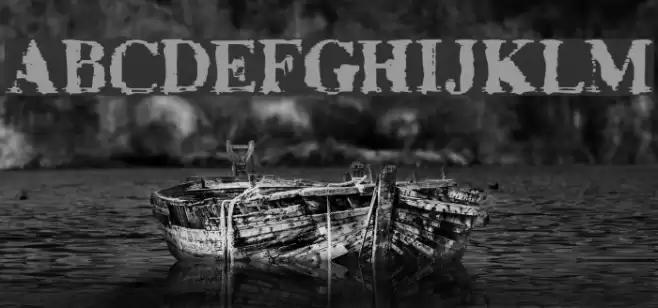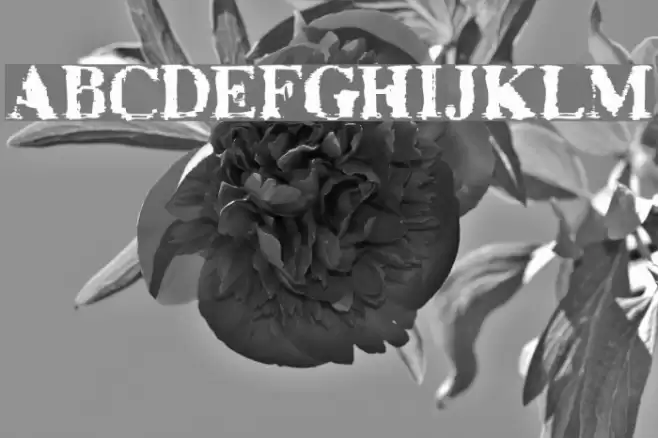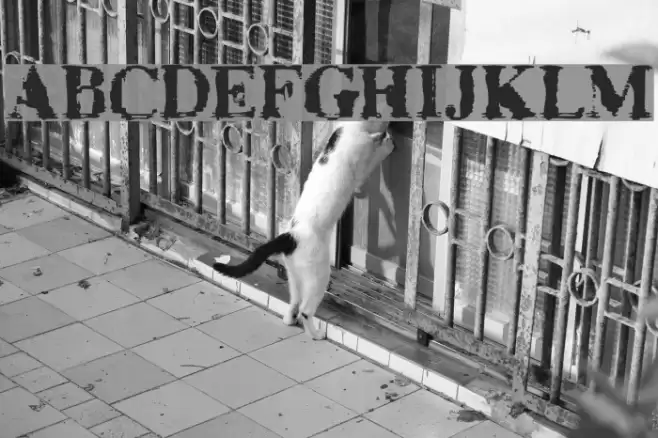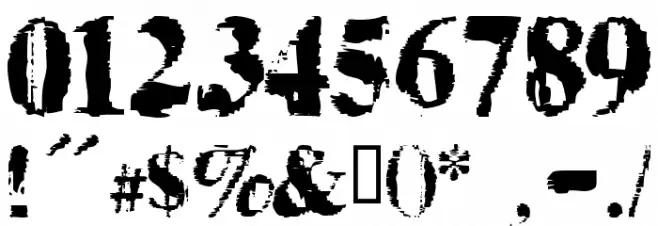
TimesNoRoman Font
TimesNoRoman Description
This font features a distressed, grunge style with irregular edges and a bold presence. The characters are heavily textured, giving them a worn and rugged appearance. The uppercase and lowercase letters maintain a consistent style, with thick strokes and uneven surfaces that suggest a vintage or industrial aesthetic. The numbers and special characters follow the same design, adding to the cohesive look. This font is ideal for projects that require a bold, eye-catching display with a touch of edginess.
A bold, distressed font with a grunge, vintage style from Distorted Eroded fonts.
- Proposed Projects: Ideal for album covers, posters, branding for edgy or vintage-themed products, and any design needing a bold statement.
- Contrast: High
- Overall Style: Vintage, Grunge